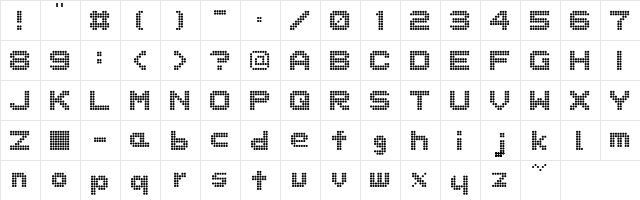
dotspecial Regular
Design Context for dotspecial Typeface
dotspecial celebrates the constraints of early digital type, turning pixel geometry into a distinctive and immediately recognisable style.
Well-suited to indie game interfaces, retro computing aesthetics, and pixel art-adjacent design work.
Pro Tip: Use dotspecial at sizes that align with its pixel grid for the sharpest rendering — scaling to non-integer multiples can introduce unwanted blur.